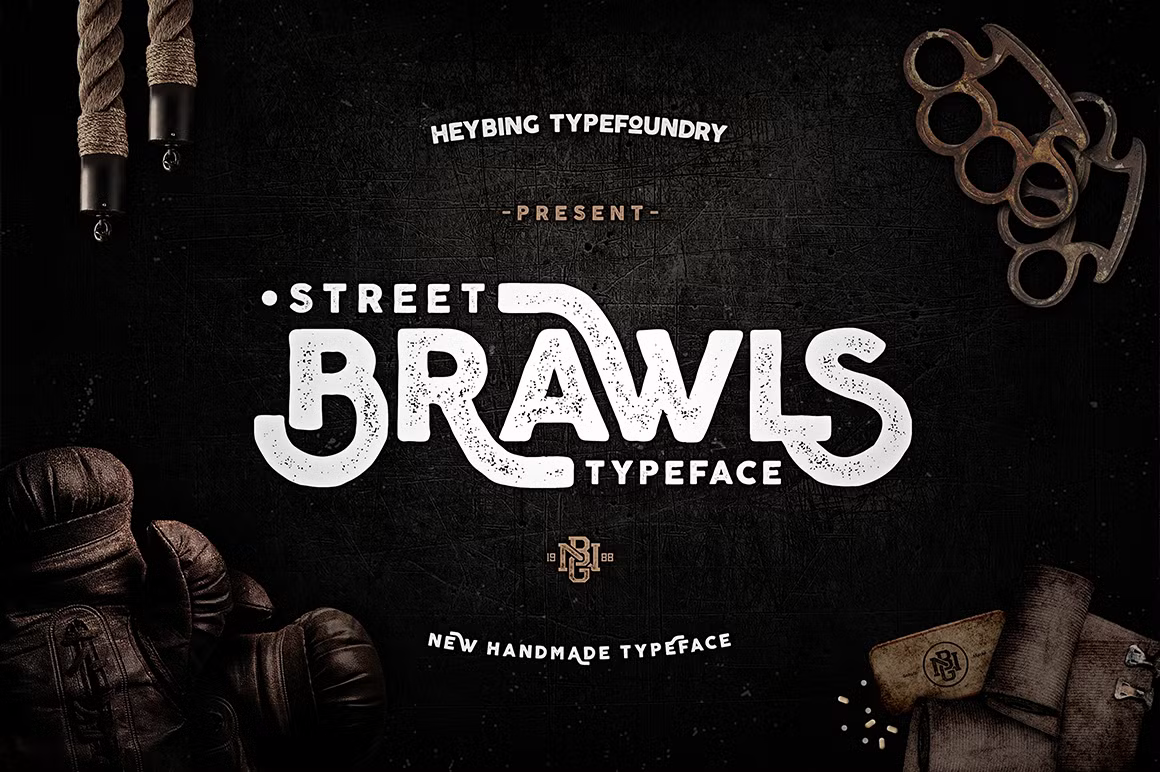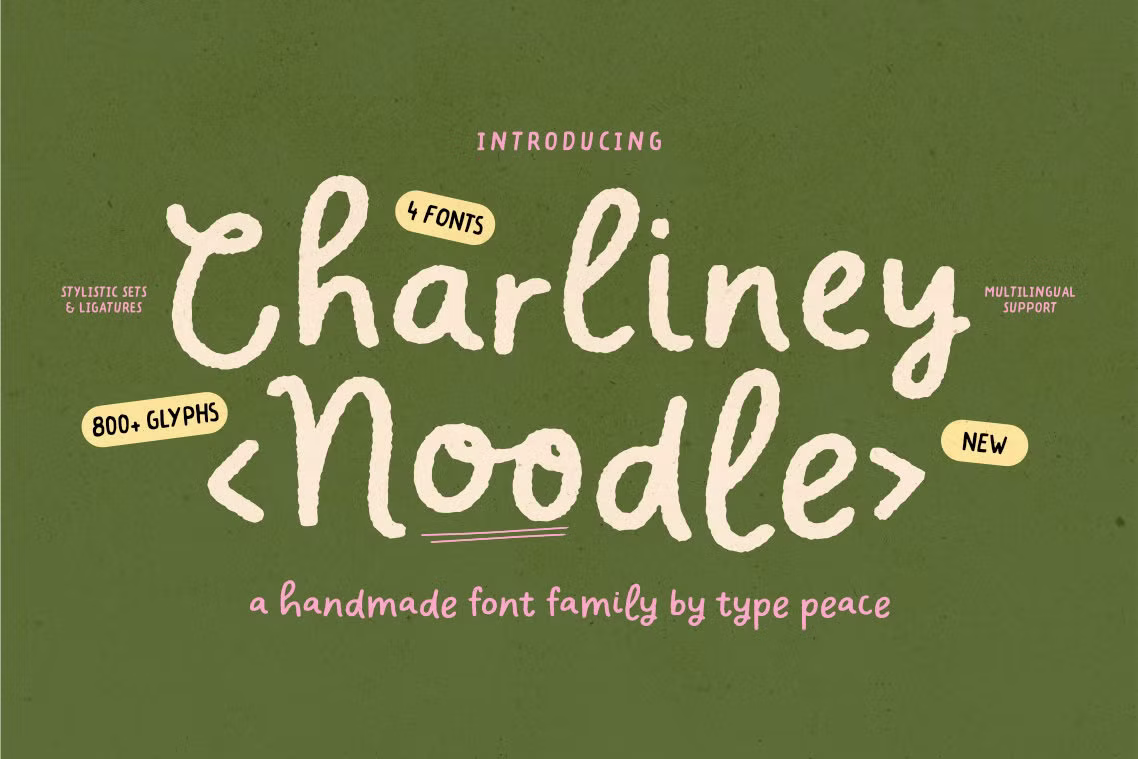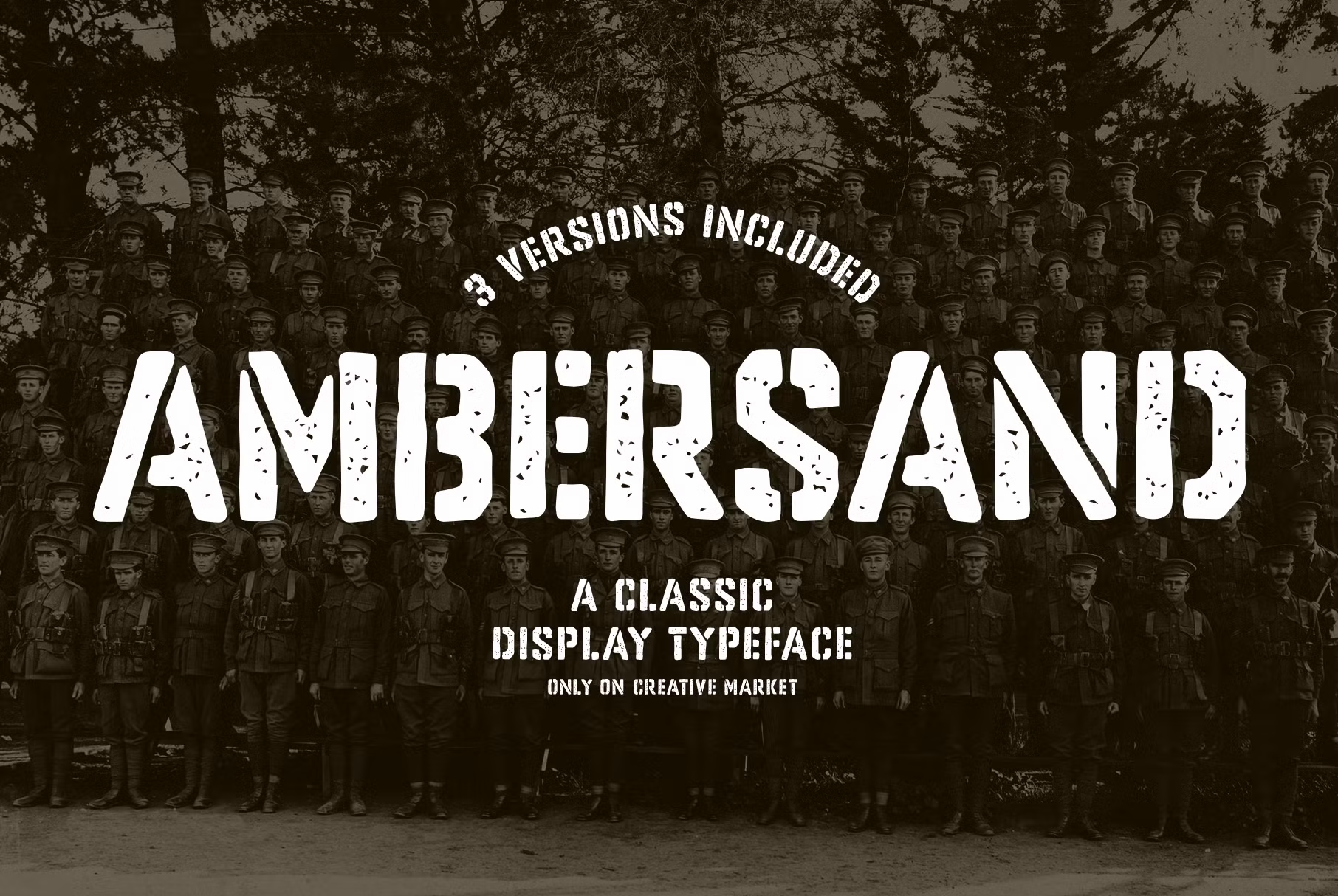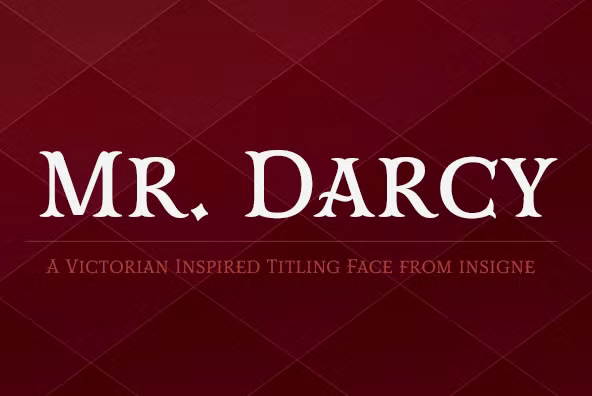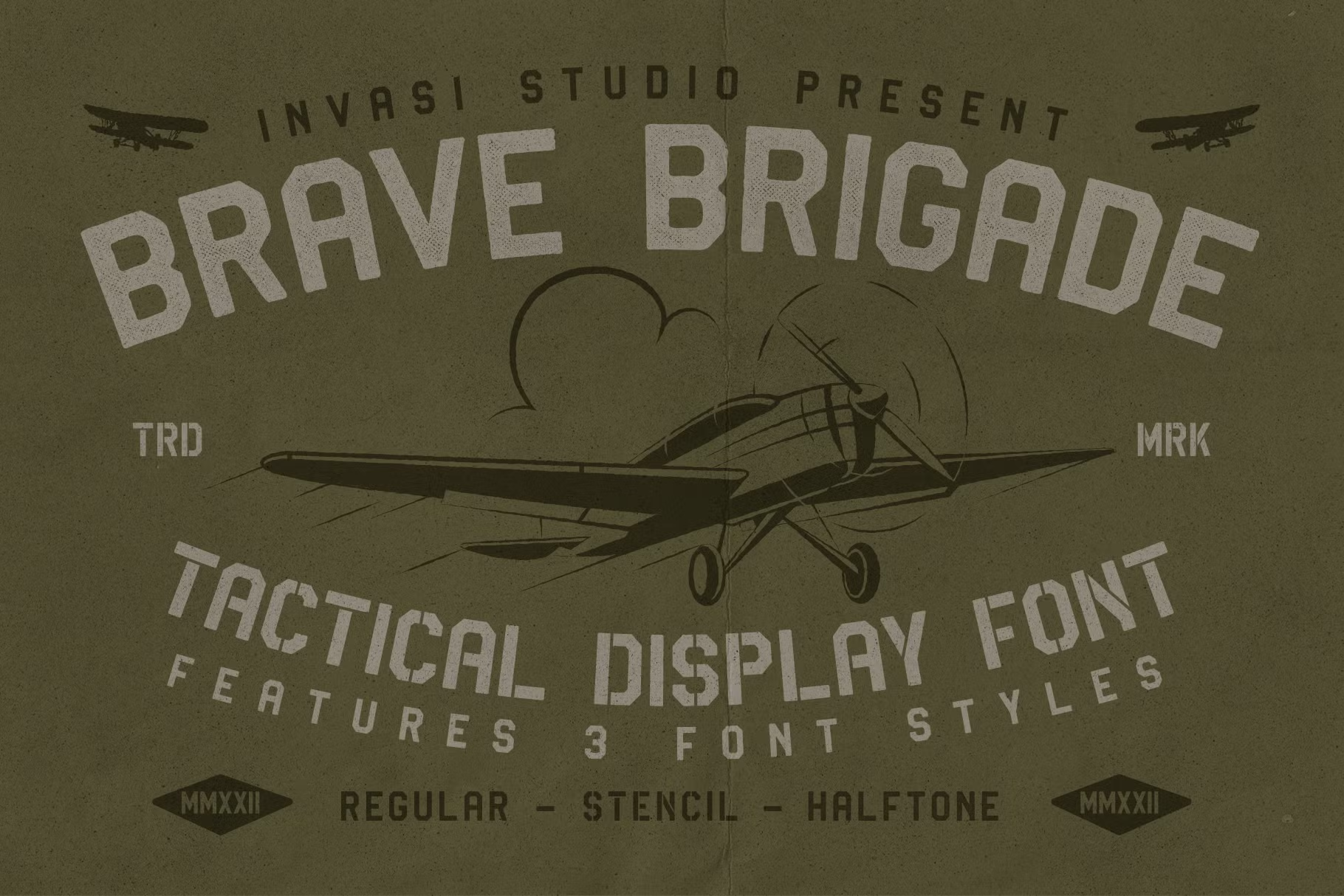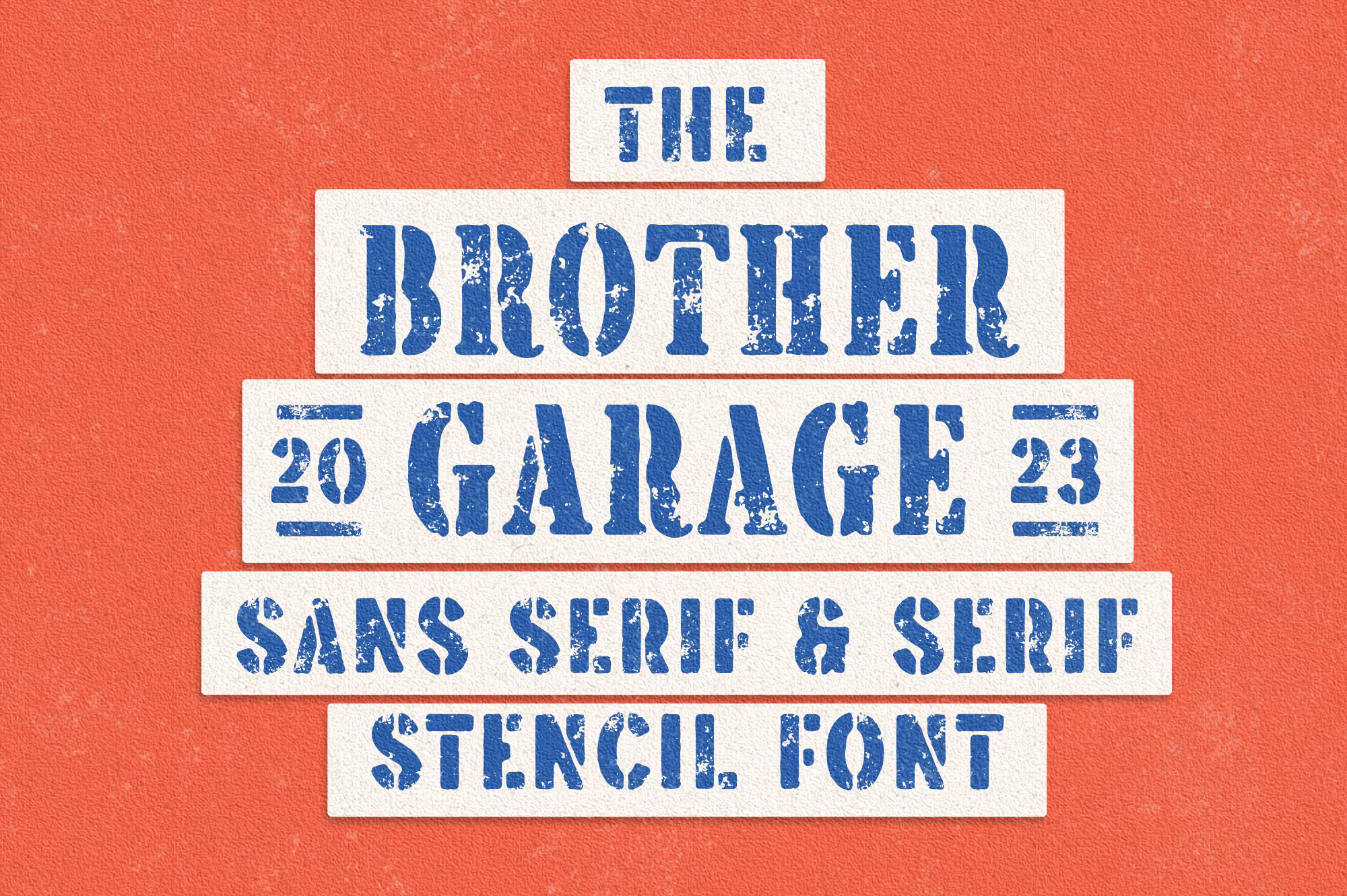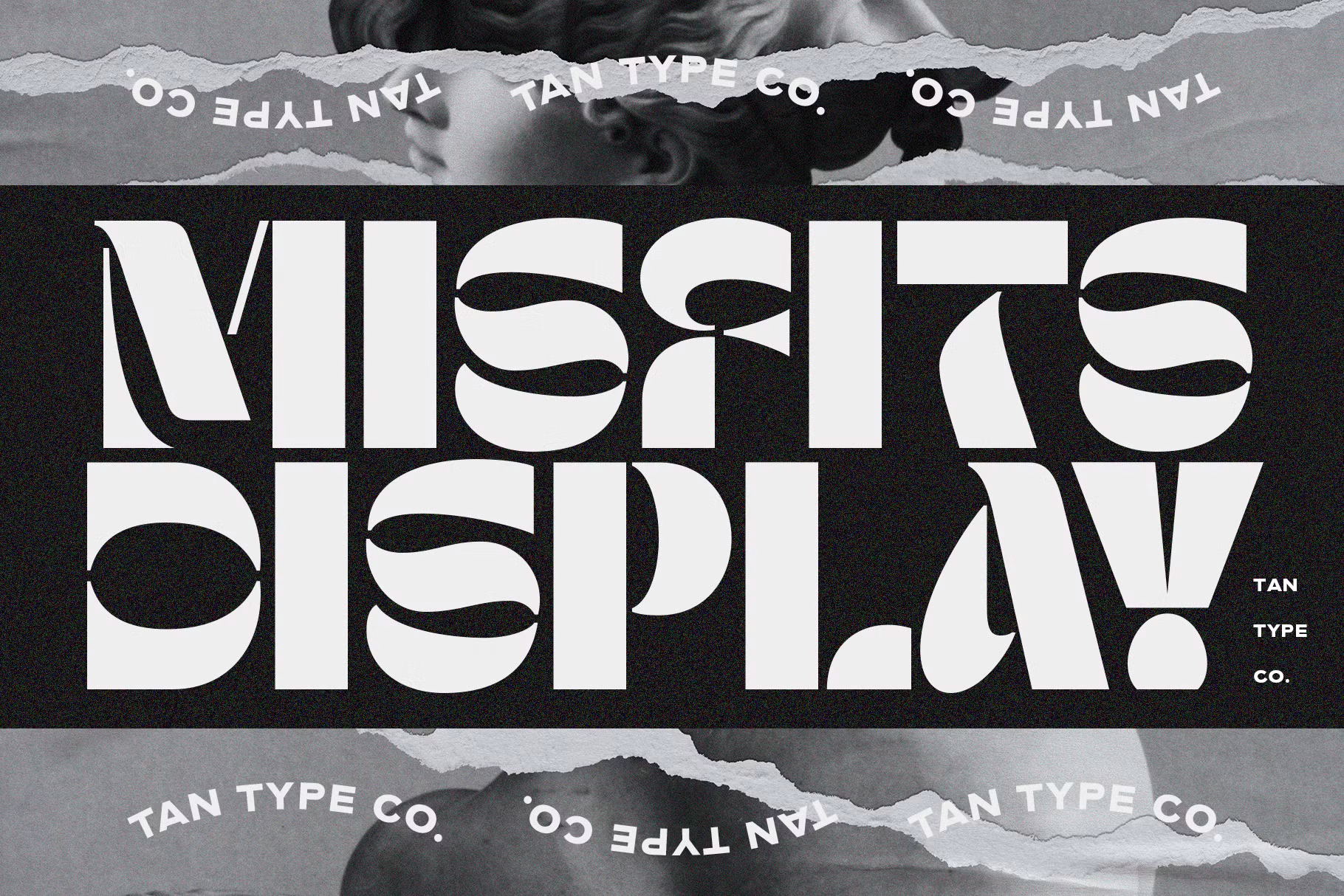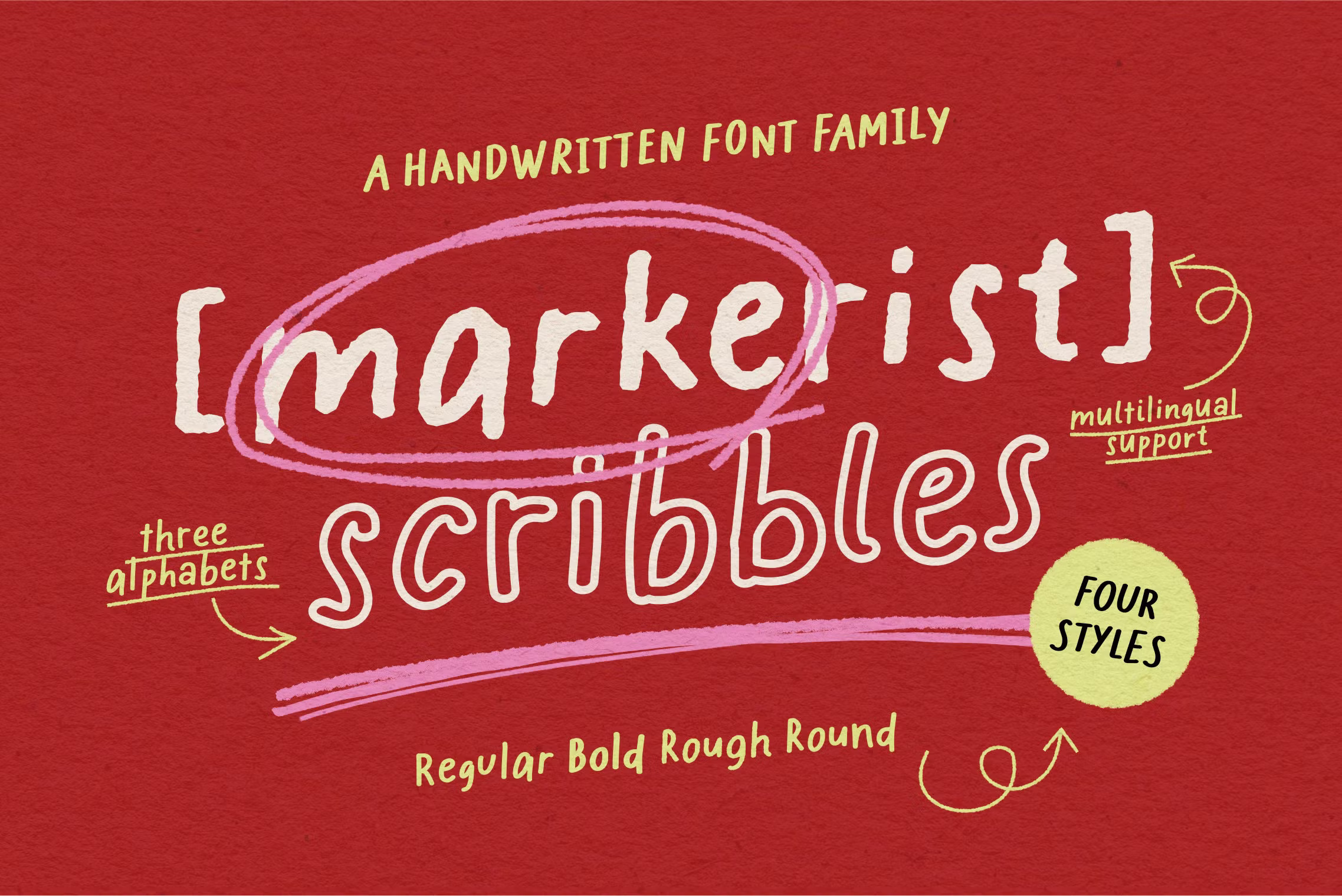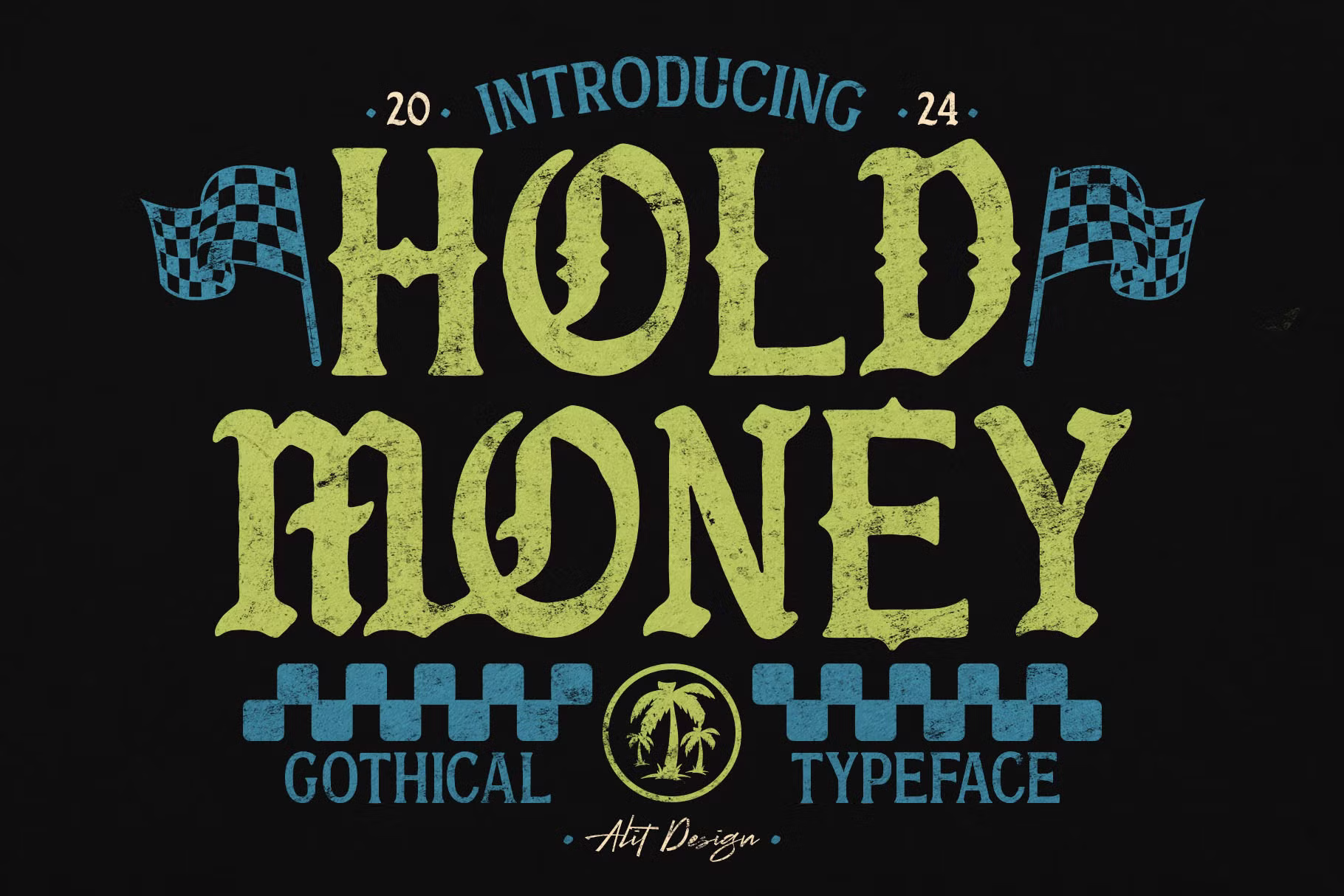
Stencil fonts are a captivating category of typefaces that offer a distinctive visual appeal, merging functionality with creativity. In this collection, we showcase an array of stencil fonts, each with its own unique style and character. From the bold and vintage-inspired Brawls Typeface to the elegant Mr. Darcy, these fonts cater to a variety of design needs. The CHARLINEY font family brings a handcrafted touch, while Ambersand offers a classic stencil aesthetic with modern versatility. Explore the playful and military-inspired styles of Brave Brigade and TAN - MISFITS. Moreover, the vintage charm of Hold Money Blackletter Typeface stands out in any project. Each font in this collection is designed to elevate your designs and engage your audience.
Brawls Typeface + Bonus
Brawls Typeface is a striking font that embodies a simple yet elegant retro aesthetic. With two distinctive styles—clean and rough—it offers versatility for various design projects. This typeface features a comprehensive character set, including uppercase and lowercase letters, numerals, punctuation, and multi-lingual support, making it an ideal choice for creative designs. The unique combination of styles allows designers to craft visually stunning text by mixing different glyphs. Whether you're working on branding, packaging, or digital content, Brawls adds a touch of vintage charm. This font comes with additional vector graphics as a bonus, enhancing its usability for various projects.
CHARLINEY | Handwritten Font Family
CHARLINEY is a beautifully crafted handwritten font family that includes four distinct styles: Pudding, Noodle, Pudding Bold, and Noodle Bold. This versatile typeface brings a personal and artisanal touch to your designs, making it ideal for a wide array of applications such as stationery, branding, invitations, and packaging. The font features automatic ligature replacements for duplicated letters, enhancing the natural handwritten appearance. With over 800 glyphs, including multilingual support and various stylistic alternates, CHARLINEY allows for creative flexibility. This font family is perfect for anyone seeking to add a friendly and inviting aesthetic to their projects, ensuring your text stands out with character.
Ambersand | Classic Stencil Typeface
Ambersand is a classic stencil typeface that fuses traditional stencil elements with a handcrafted aesthetic. This font features bold characters constructed from basic geometric shapes, allowing for easy customization. Ambersand offers three distinct styles: a traditional sharp-edged bold stencil, a stippled version with a unique hand-drawn effect, and a solid variant that complements the stippled design. Each style is crafted with heavy strokes and organic edges, making them perfect for various applications, from apparel to corporate branding. The versatility of Ambersand makes it an excellent choice for marketing materials, print projects, and anything requiring a bold, stylish typeface.
Mr Darcy
Mr. Darcy is a sophisticated font that embodies elegance and charm reminiscent of Victorian literature. This typeface is designed with meticulous attention to detail, featuring over 136 alternative characters that enhance its refined appearance. The font exudes a contemporary yet classic aesthetic, making it perfect for a variety of upscale designs, including invitations, branding, and editorial work. The versatility of Mr. Darcy allows for creative expression across different mediums, from print to digital. To fully utilize its OpenType features, users can employ design software that supports these options, ensuring a unique and personalized output for any project. Let Mr. Darcy lead your designs with sophistication and grace.
Goldana Fonts + extras
Goldana is a unique layered display font inspired by the art deco movement. This versatile typeface includes a base layer and several extrude options, allowing designers to create dimensional effects effortlessly. With various standalone styles and scripts, Goldana can be mixed and matched to produce distinctive designs. The font is equipped with OpenType features and comes with shadow and stencil styles that are designed for standalone use. Whether you’re crafting badges, vintage-themed projects, or decorative art, Goldana provides the perfect aesthetic. With its layered structure, this font opens up endless creative possibilities for both print and digital applications.
Brave Brigade - Tactical Display Fon
The Brave Brigade font draws inspiration from military aesthetics, providing a bold display typeface suitable for various applications. This font is available in three styles—regular, halftone, and military stencil—each offering a unique look for your designs. Its strong, uppercase lettering makes it ideal for branding projects, posters, packaging, and magazine covers. Brave Brigade supports over 60 Latin-based languages, ensuring versatility across different markets. With a focus on military themes, this font can help create impactful visuals that resonate with audiences. Whether you're designing for print or digital platforms, Brave Brigade is the perfect choice for making a bold statement.
Brother Garage - Display Font
Brother Garage is a vintage-inspired font collection that captures the essence of motorcycle culture. This versatile typeface features three unique styles—regular, rough, and stamp—allowing designers to incorporate authentic, rustic appeal into their projects. Each style is designed for maximum impact, making it ideal for posters, logos, apparel, and more. Along with the fonts, users receive 13 hand-drawn illustrations that complement the typefaces beautifully, enhancing the overall vintage aesthetic. With multilingual support and PUA encoding, Brother Garage ensures accessibility across various languages and platforms. Embrace the spirit of adventure and craftsmanship with this dynamic font collection.
TAN - MISFITS
TAN - MISFITS is a bold, eye-catching stencil display typeface that brings a unique and playful personality to your designs. With its striking appearance, this font is perfect for projects that require a bold statement. Ideal for posters, branding, and creative endeavors, TAN - MISFITS adds a touch of fun and excitement. This font is available in various formats (TTF, OTF, WOFF, WOFF2) and supports multilingual options, making it versatile for different projects. As an added benefit, the font will receive free future updates, ensuring it stays fresh and relevant for your design needs.
MARKERIST | Handwritten Font Family
MARKERIST is a unique handwritten font family that brings a maker-style aesthetic to your designs. It includes a full set of handmade alphabets, numbers, punctuation, and symbols, perfect for creating cohesive and personalized projects. With four distinct styles—Regular, Bold, Rough, and Round—MARKERIST allows for versatility in design applications, from invitations to social media graphics. The font's OpenType features enable contextual alternates that enhance the handwritten effect, ensuring your text appears genuinely crafted. With multilingual support and a wide array of glyphs, MARKERIST is an excellent choice for adding a personal touch to your creative work.